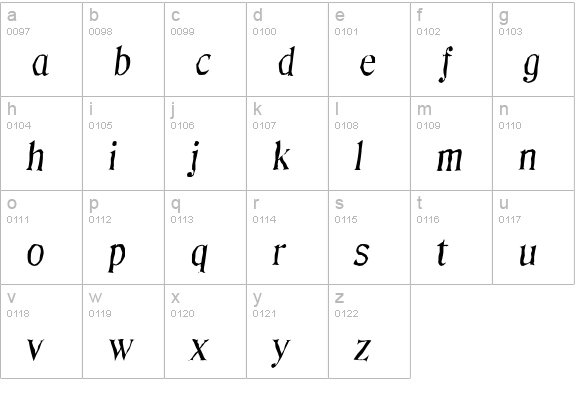
DenverAntique-Italic is a distinctive, italic variant in the DenverAntique typeface family \xE2\x80\x94 well suited to design and typography projects.
DenverAntique-Italic is a classic and elegant font that exudes a sense of timeless sophistication. Its delicate curves and intricate details make it perfect for adding a touch of vintage charm to any project. The italic style adds a touch of flair and elegance, making it ideal for wedding invitations, branding, and other formal designs. This beautiful font is available for free download at FontsMarket.com, making it easily accessible for anyone looking to add a touch of antique elegance to their designs. Whether you're a professional designer or just looking to add some vintage flair to your personal projects, DenverAntique-Italic is sure to impress with its grace and style.